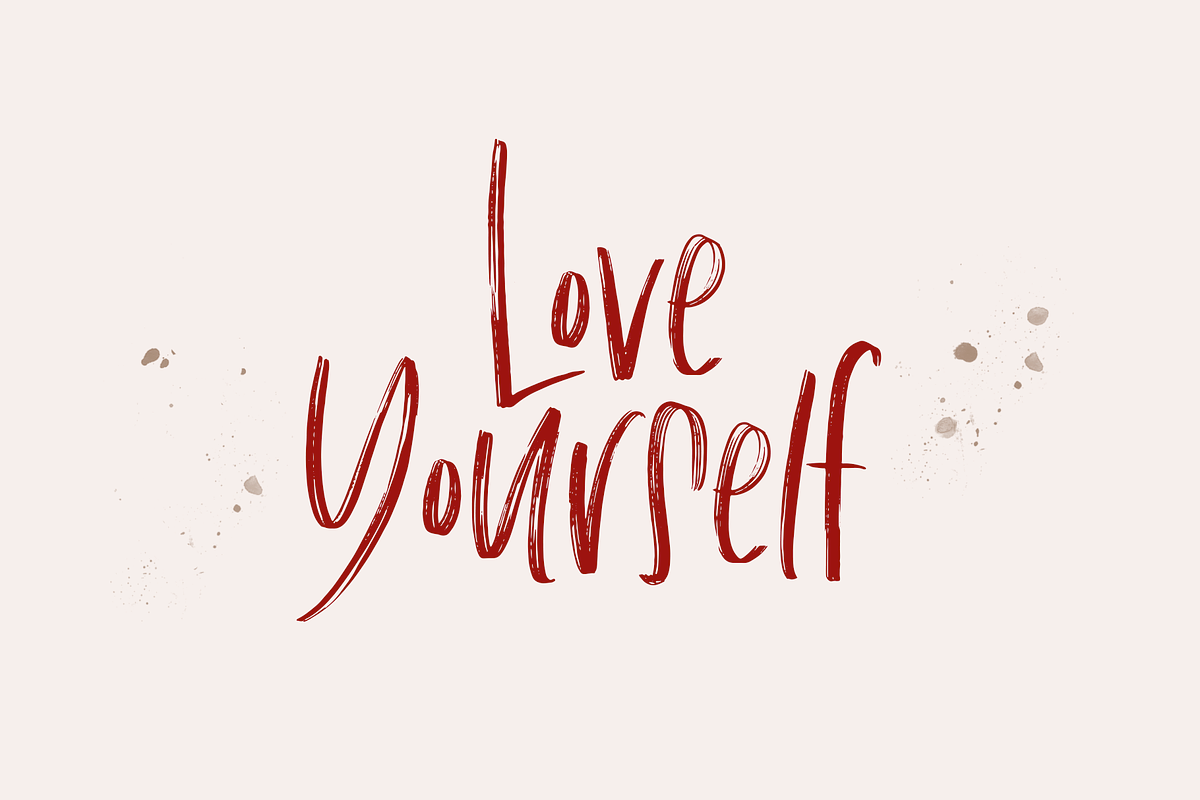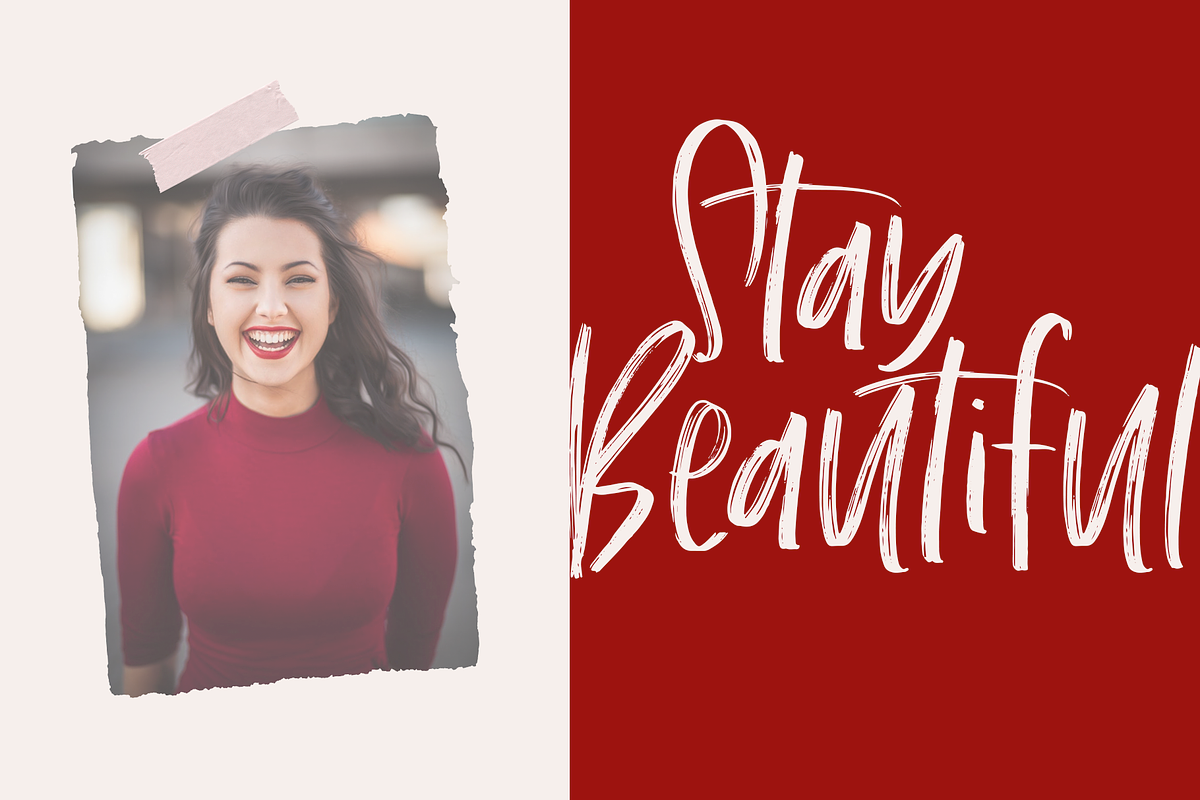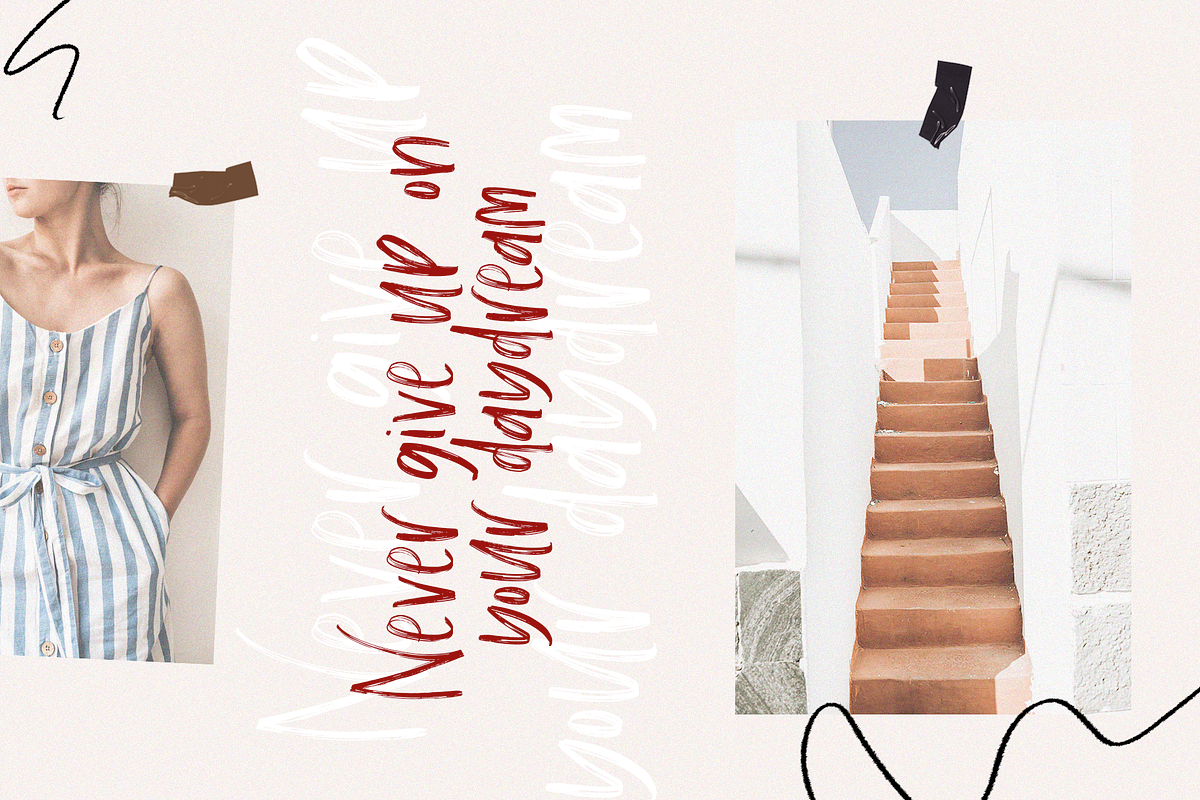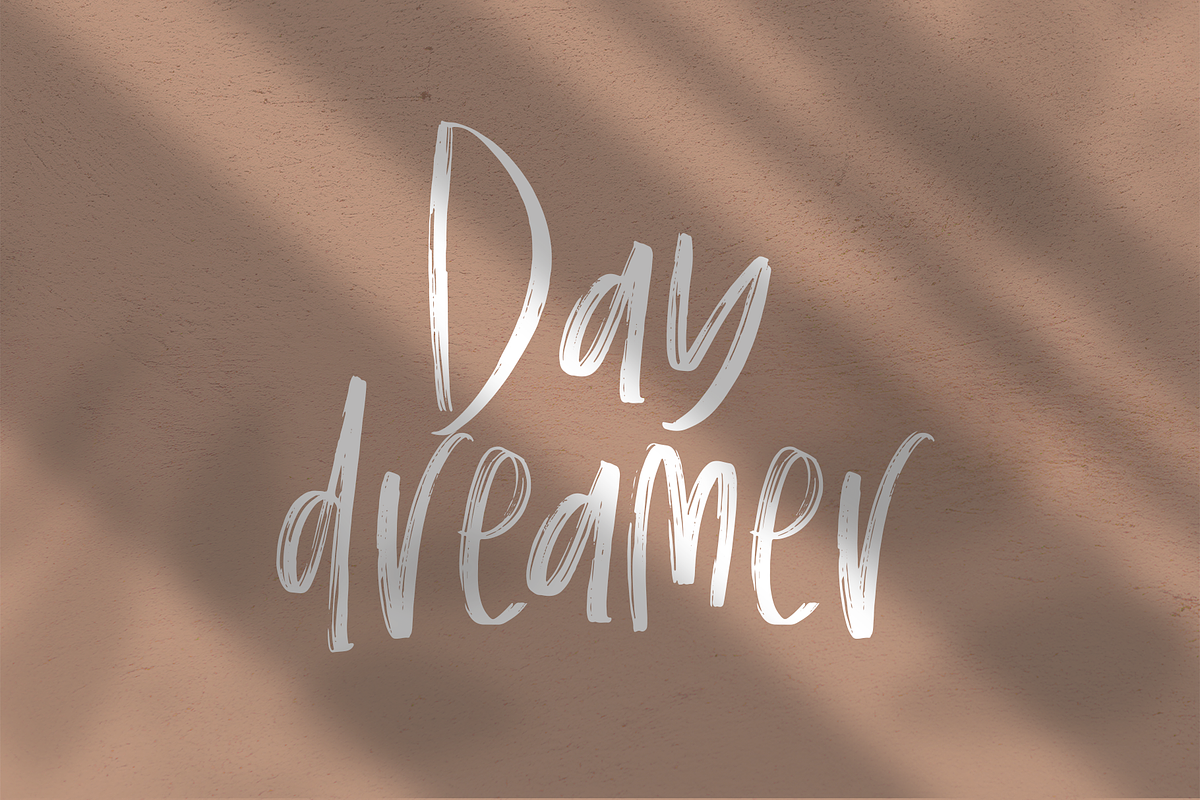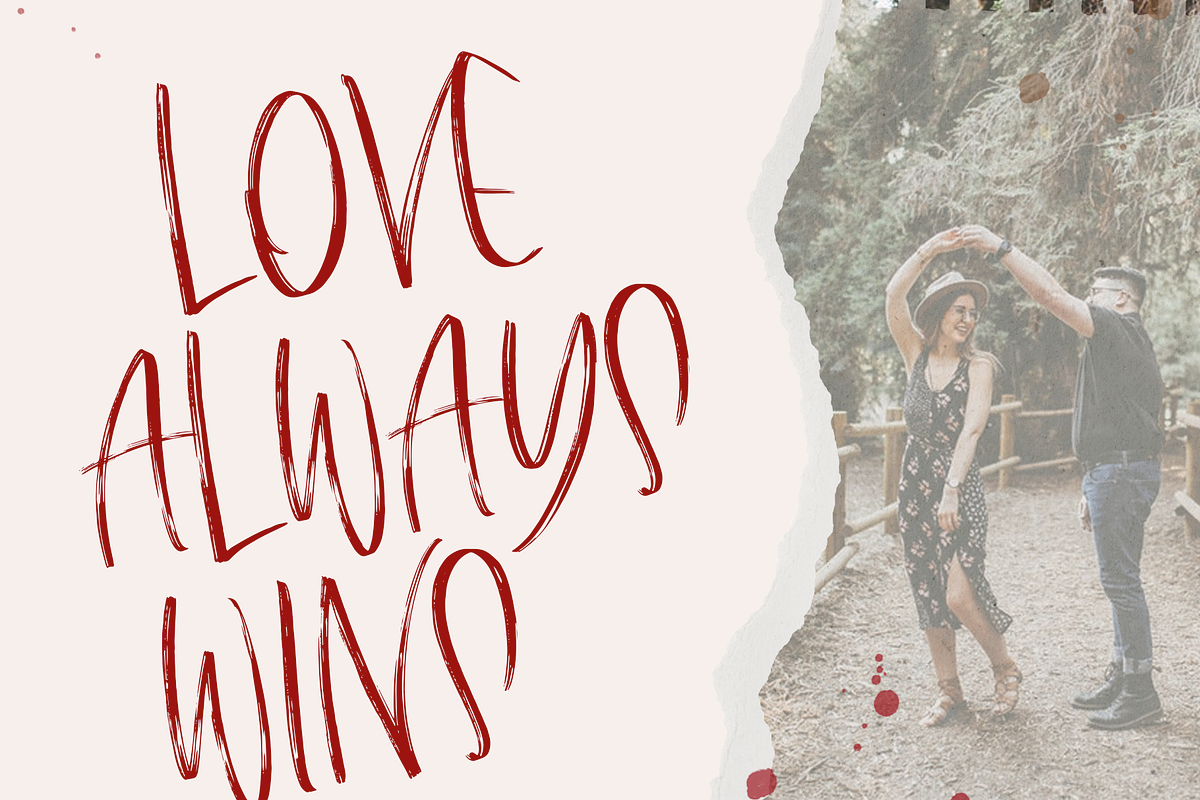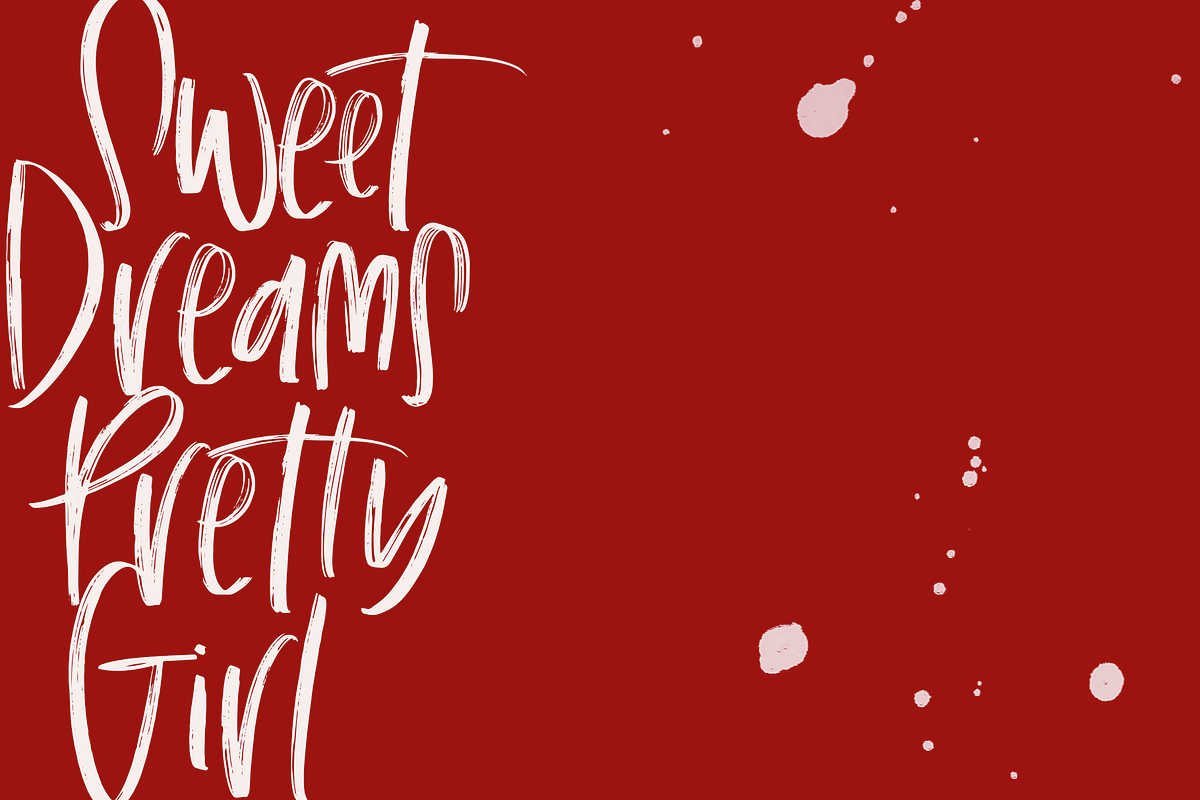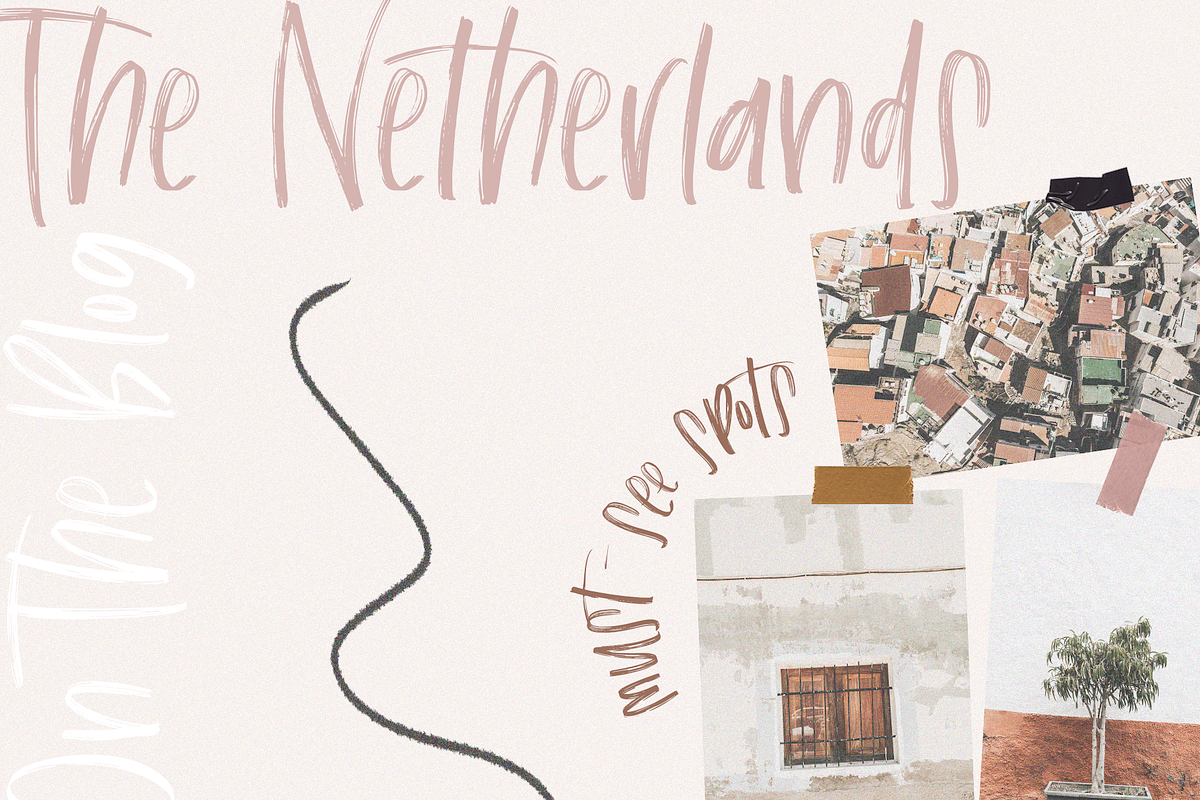
The Scarlett -Handwritten Brush Font
The Scarlett is a carefree, chic font written in brush lettering.
This font is perfect for modern projects, headings, blogs, logos, brandings, invitations and more!
- Accent characters are not included at this time.